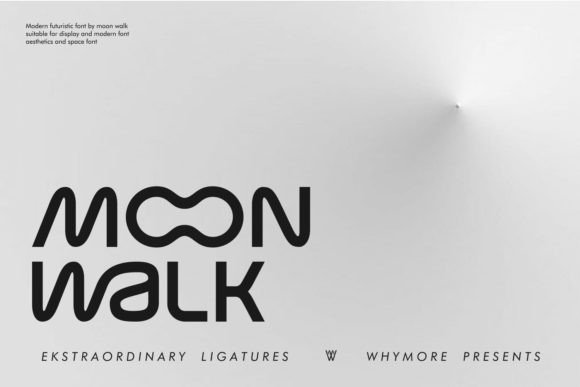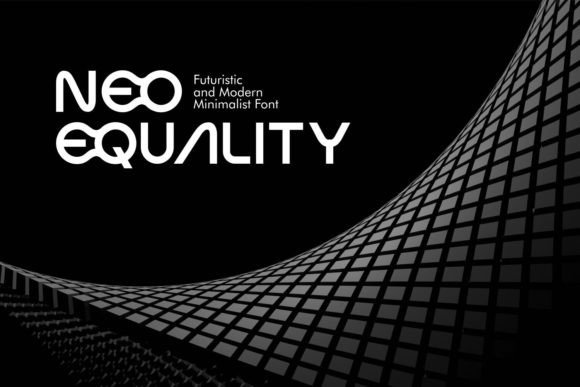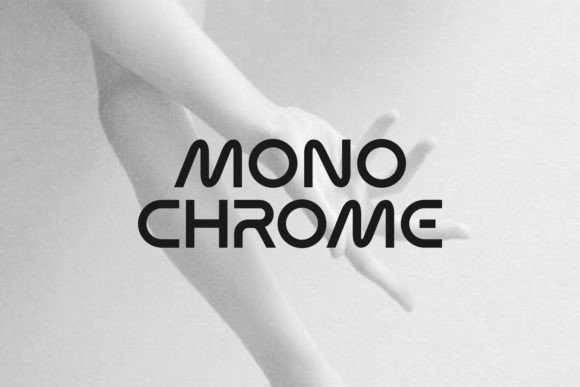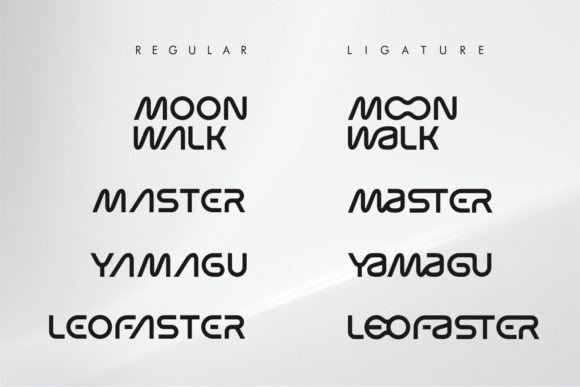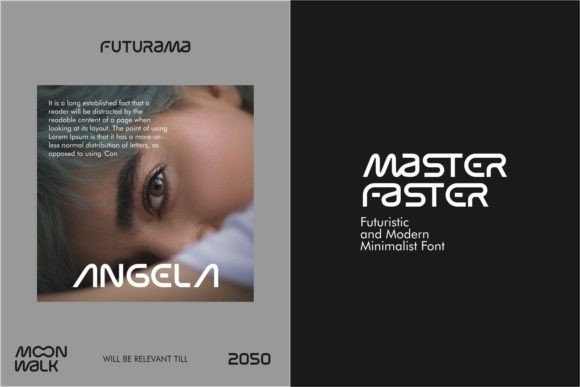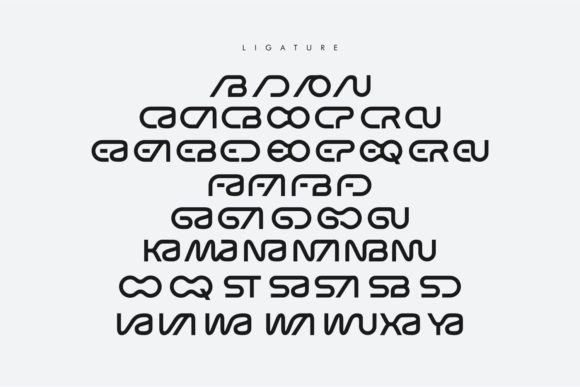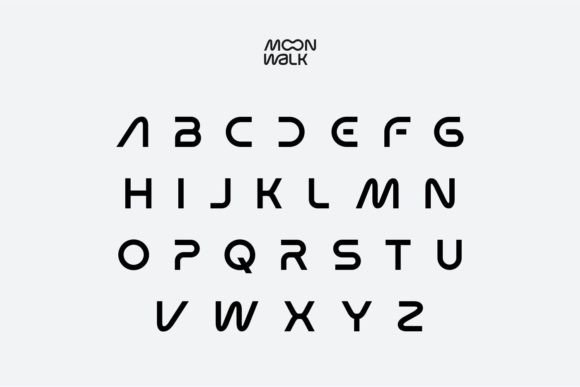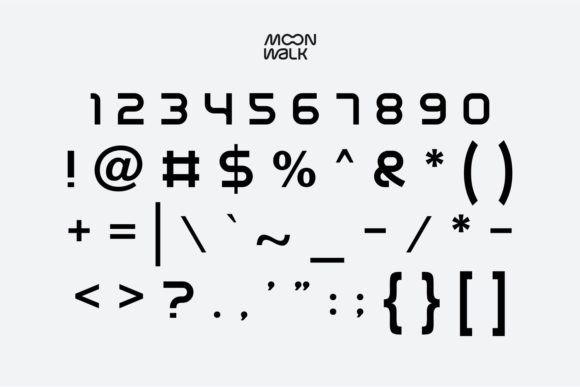
Moon Walk is a stunning typeface that can showcase elegance but with a minimalist form. The curves at each end of the letter ornament illustrate that this font is very ready to live in the present and the future. Whether used for branding, design templates, in the form of invitations, calendars, posters, headlines, brochures, promotional tools or editorial designs.